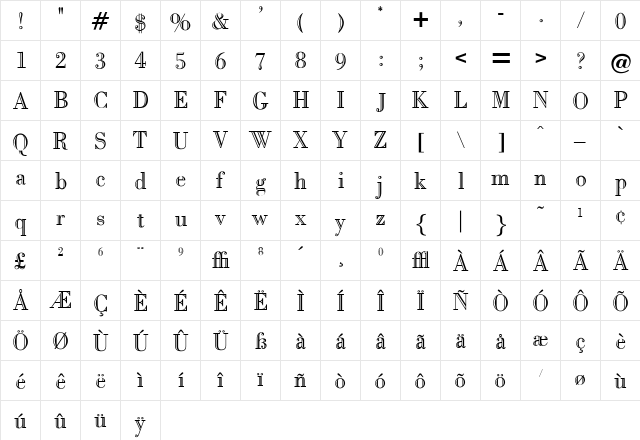
OPTIBodoni Medium Font Preview
OPTIBodoni Medium
Design Context for OPTIBodoni Typeface
OPTIBodoni takes a measured approach to typography — its balanced proportions and neutral character make it a reliable workhorse for both digital and print work.